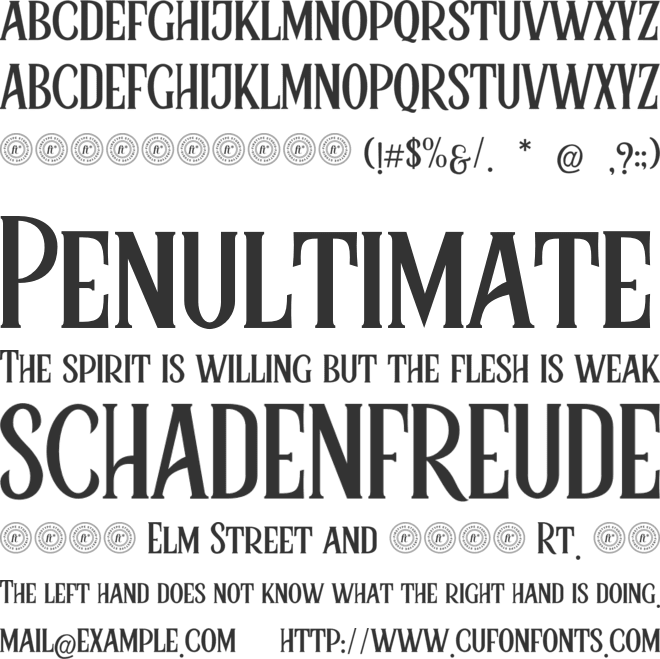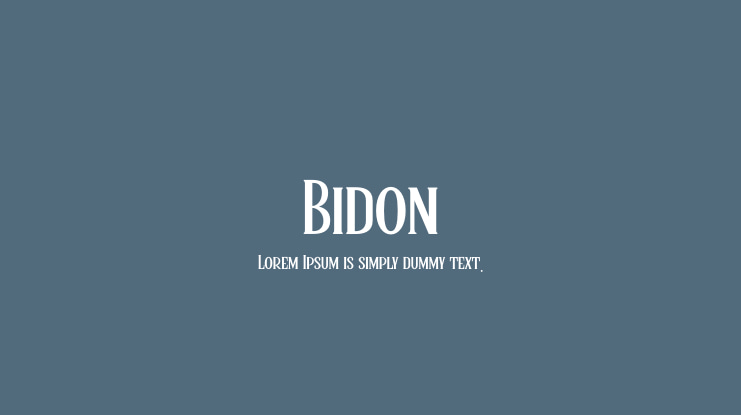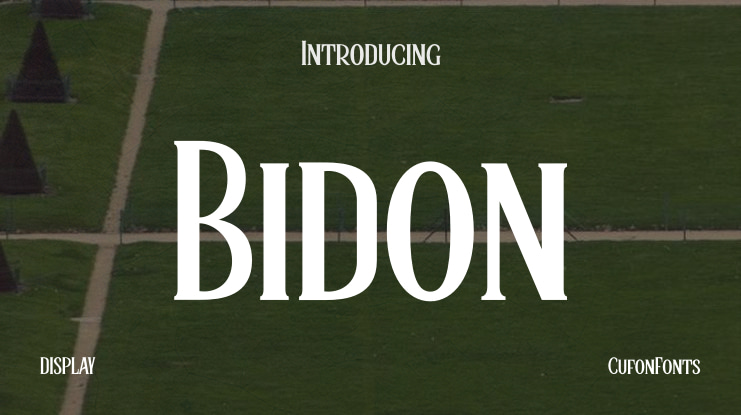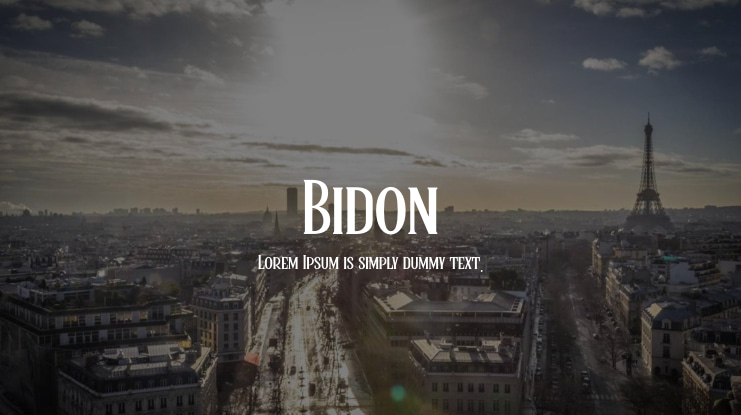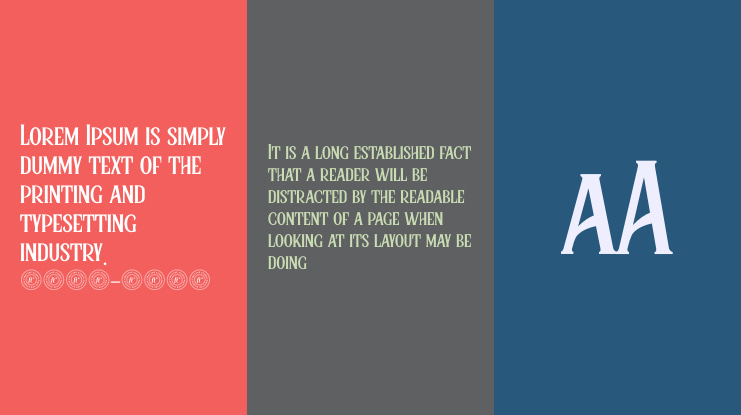
Bidon Font
Introducing Bidon, a rugged font inspired by the Wild West that adds a touch of cowboy charm to your designs. Whether you're creating billboards or posters, Bidon is the perfect choice. Its distinct character captures the essence of the Old West and transports your audience to a time when the frontier was still unexplored.
Bidon's bold and rustic design makes it ideal for cowboy-themed billboards. Whether you're promoting a rodeo, western show, or cowboy event, this font gives your message the rugged and adventurous look it deserves.
But Bidon isn't limited to just cowboy themes. Its versatile character also lends itself well to circus-themed designs. The bold serifs and distinctive letterforms bring a vintage circus charm to your promotional materials.
When you choose Bidon, you're not just selecting a font. You're saddling up your typography for an unforgettable journey through the Wild West or under the big top.
Embrace the Wild West with Bidon – Where Cowboy Adventure Awaits.